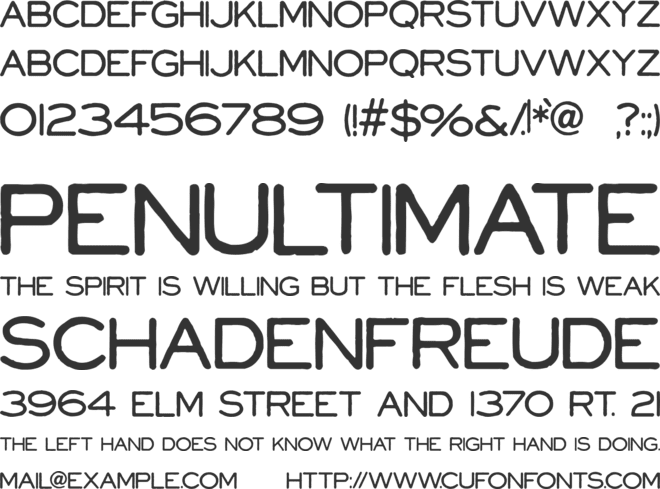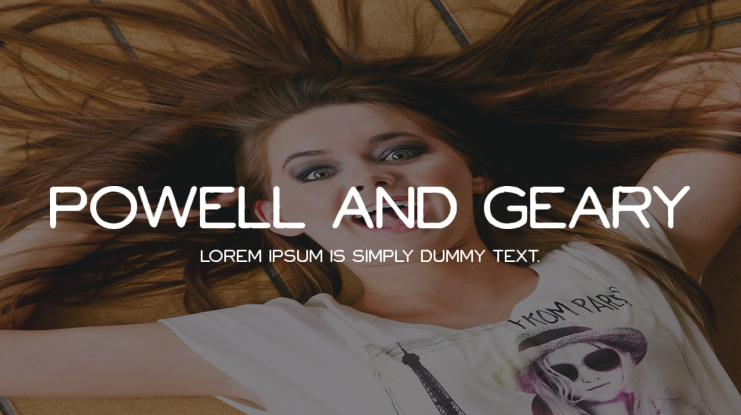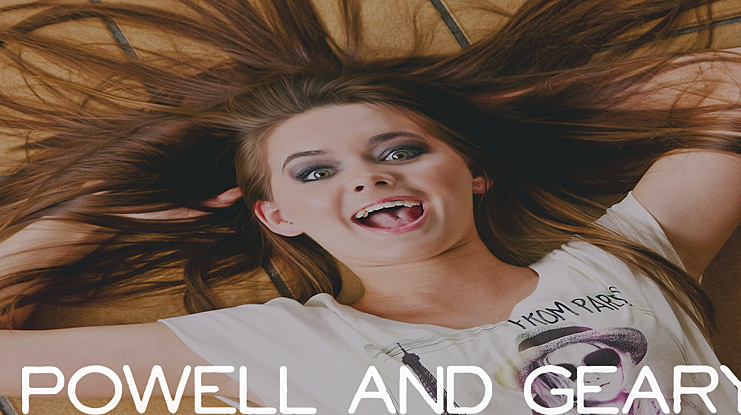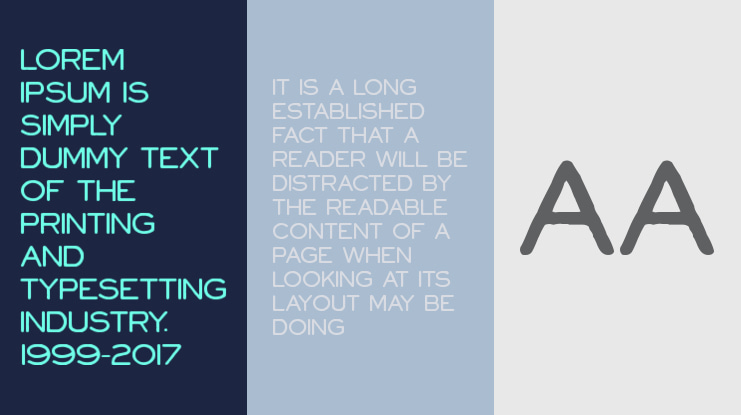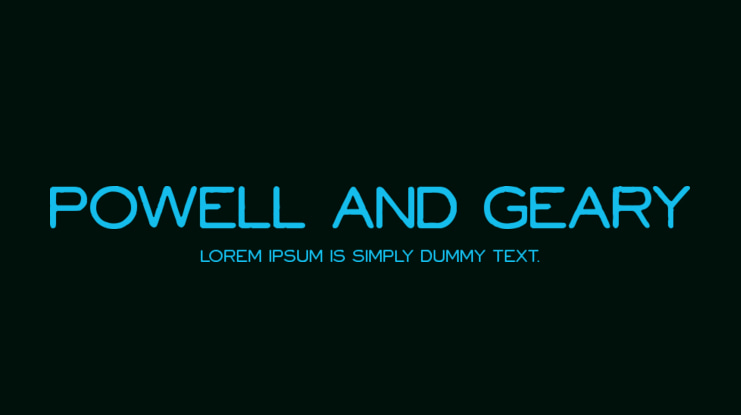
Powell and Geary Font
S. John Ross
It may come as no surprise that I've been collecting stacks of San Francisco street maps and travel guides from the 1920s, 30s and 40s for my Fly From Evil campaigns. Inspired by the look of a particularly nice map from the mid-30s, I built some fonts to create similar street labels, complete with identical mild stressing and bloating. This particular one, "Powell and Geary," is the simplest of the lot, an all-caps labeling font similar to several faces common in functional, non-decorative graphics of the 30s, especially on maps and charts (I keep running into it, too, when reading old 1930s agriculture magazines; don't ask me why I'm reading such things...)